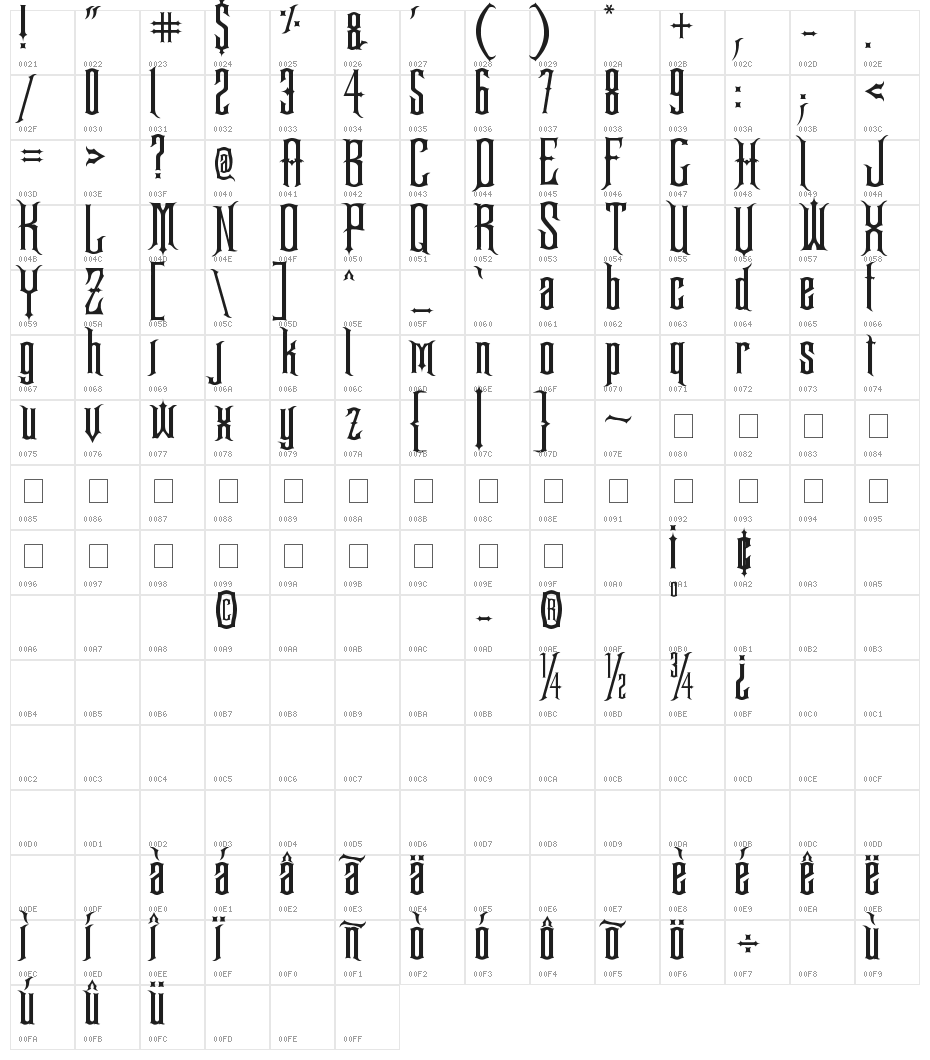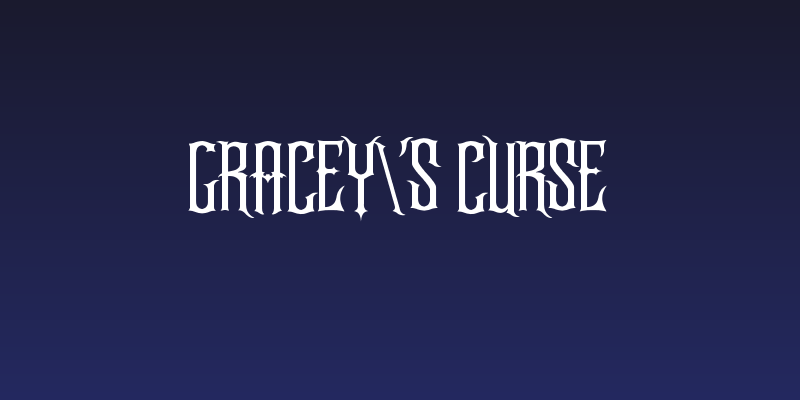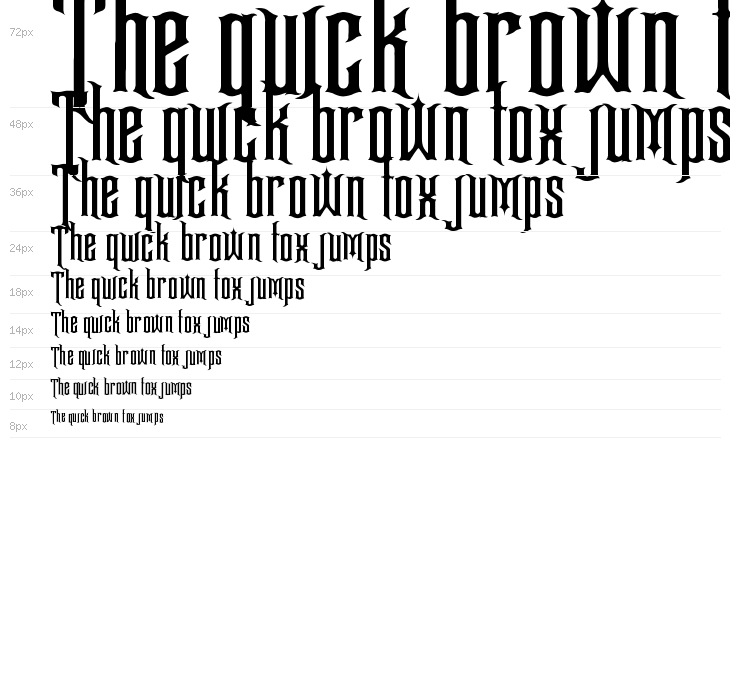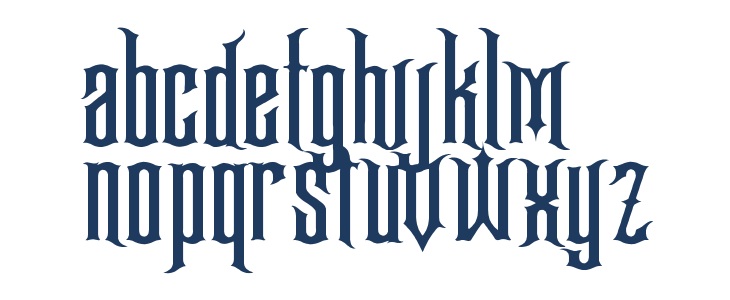
Gracey's Curse Font
Gracey's Curse Description
This font features a distinct Gothic style with elongated, sharp serifs and intricate detailing. The uppercase letters are tall and narrow, giving a dramatic and imposing appearance. The lowercase letters maintain the same sharpness and intricacy, creating a cohesive look throughout the typeface. Numbers and special characters are designed with similar attention to detail, ensuring consistency. The overall aesthetic is reminiscent of medieval script, making it ideal for projects that require a historical or mysterious touch. The font's unique style is both eye-catching and memorable, suitable for creative and decorative purposes.
| Overall Style | Gothic, Decorative |
| Proposed Projects | Perfect for Halloween-themed designs, fantasy book covers, gothic event invitations, and decorative posters. |